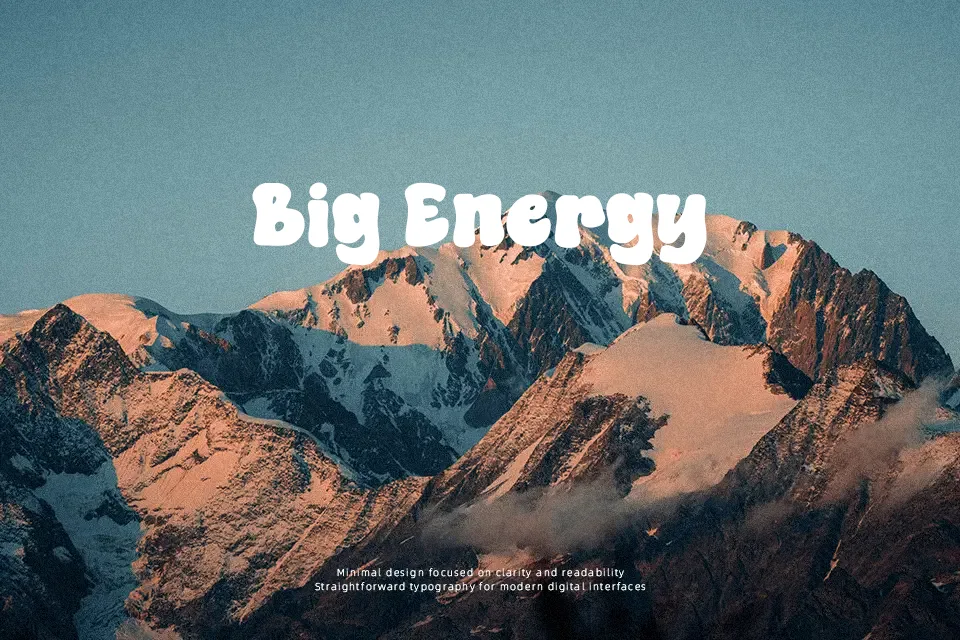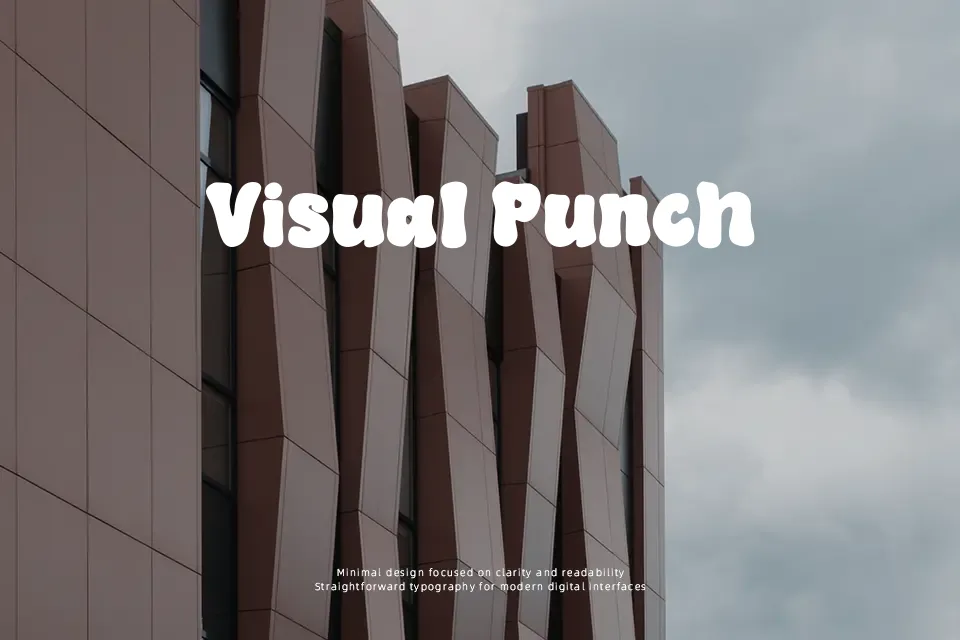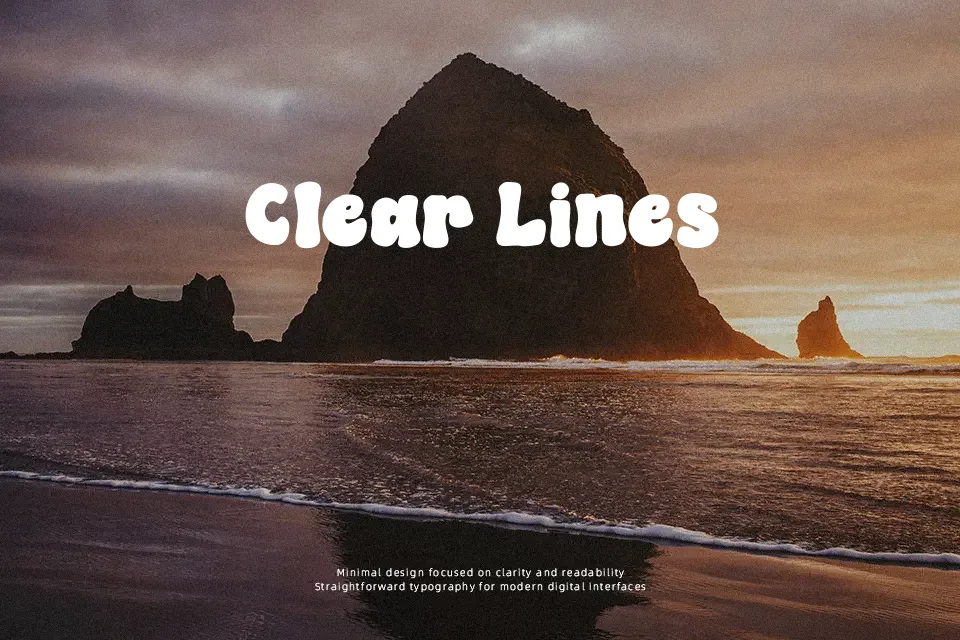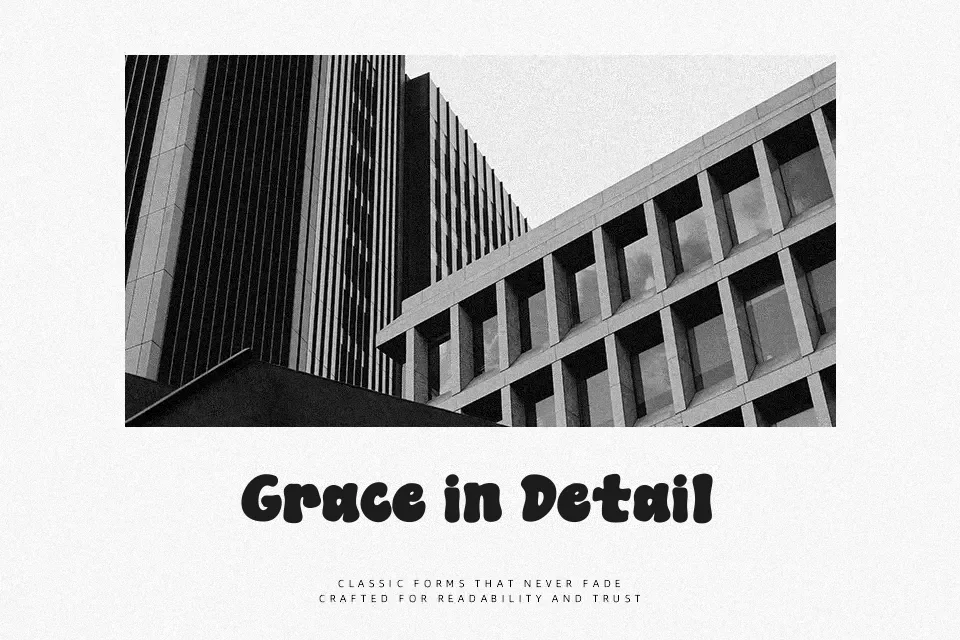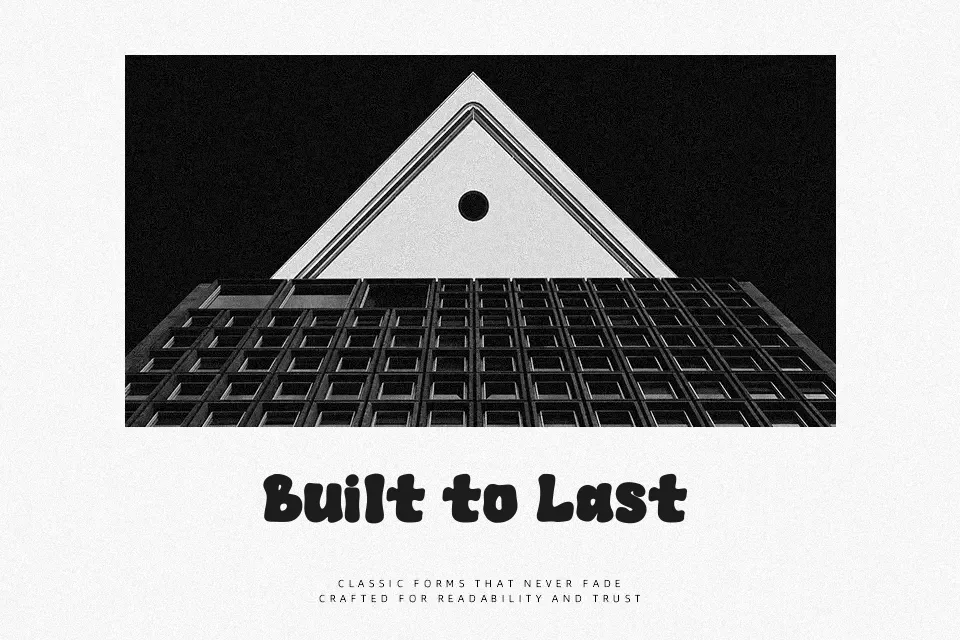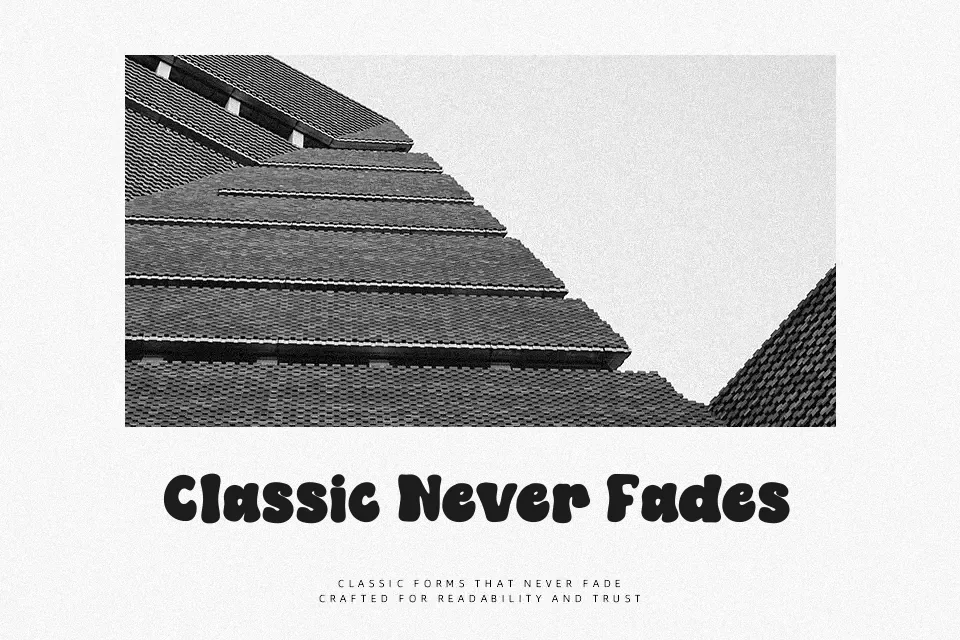
Alaskano Font
Thick strokes, bulbous curves, and a chunky weight give Alaskano a retro-modern feel that lands somewhere between classic display serifs and fun lettering. The letterforms carry a casual boldness suited for titles, brand marks, or social media visuals where personality matters. It includes some ligatures and lowercase alternates that add variety to short compositions. That said, Alaskano works best in large sizes — at small scales, the rounded, heavy strokes crowd together and lose legibility. The free version is demo-only, so anyone planning commercial work should budget for a license. It fills a similar role to novelty display serifs but carries a warmer, more approachable tone.
Best For:- Retro-themed poster and book cover headlines
– Social media graphics needing bold character
– Logo design for food, lifestyle, or entertainment brands
– Movie or music title treatment
Not Ideal For:- Body copy or extended reading text
– Corporate documents or formal reports
– Small-size applications like footnotes or captions
– Projects requiring multilingual script support beyond Latin
Perfect for branding, editorial, and film, with a bold and decorative style.